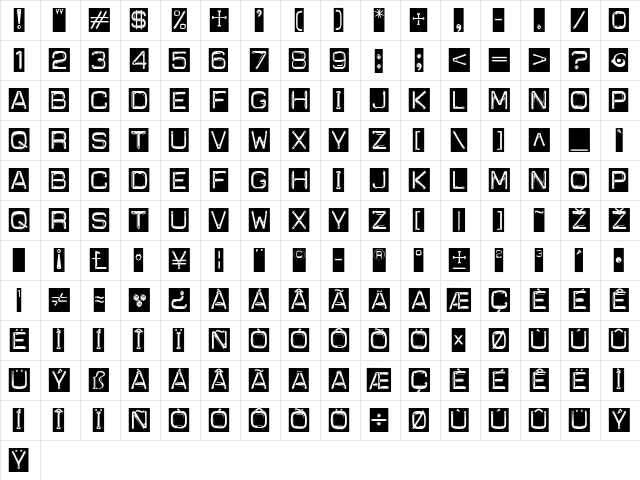
Carbon-14 Labeler Regular
| Foundry | CONIGLIO USA |
| Designer | Joseph V. Coniglio (CONIGLIO USA, 914.980.8788) |
Design Context for Carbon-14 Labeler Typeface
Carbon-14 Labeler offers clean, dependable letterforms without strong stylistic allegiance, making it a practical choice for designers who need flexibility.